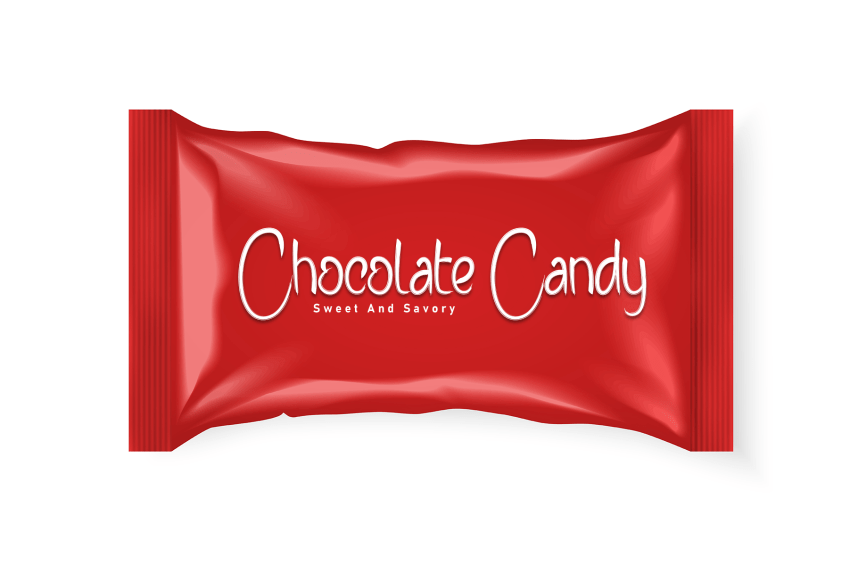
Brush Christmas Brush Font
Brush Christmas Brush Font, special creative products for you, our products will give you an extraordinary experience. the latest style letters are perfect for wall displays, wedding invitations, social media post logos, advertisements, product packaging, product designs, labels, photography, watermarks, invitations, stationery, and any project that requires taste handwriting.